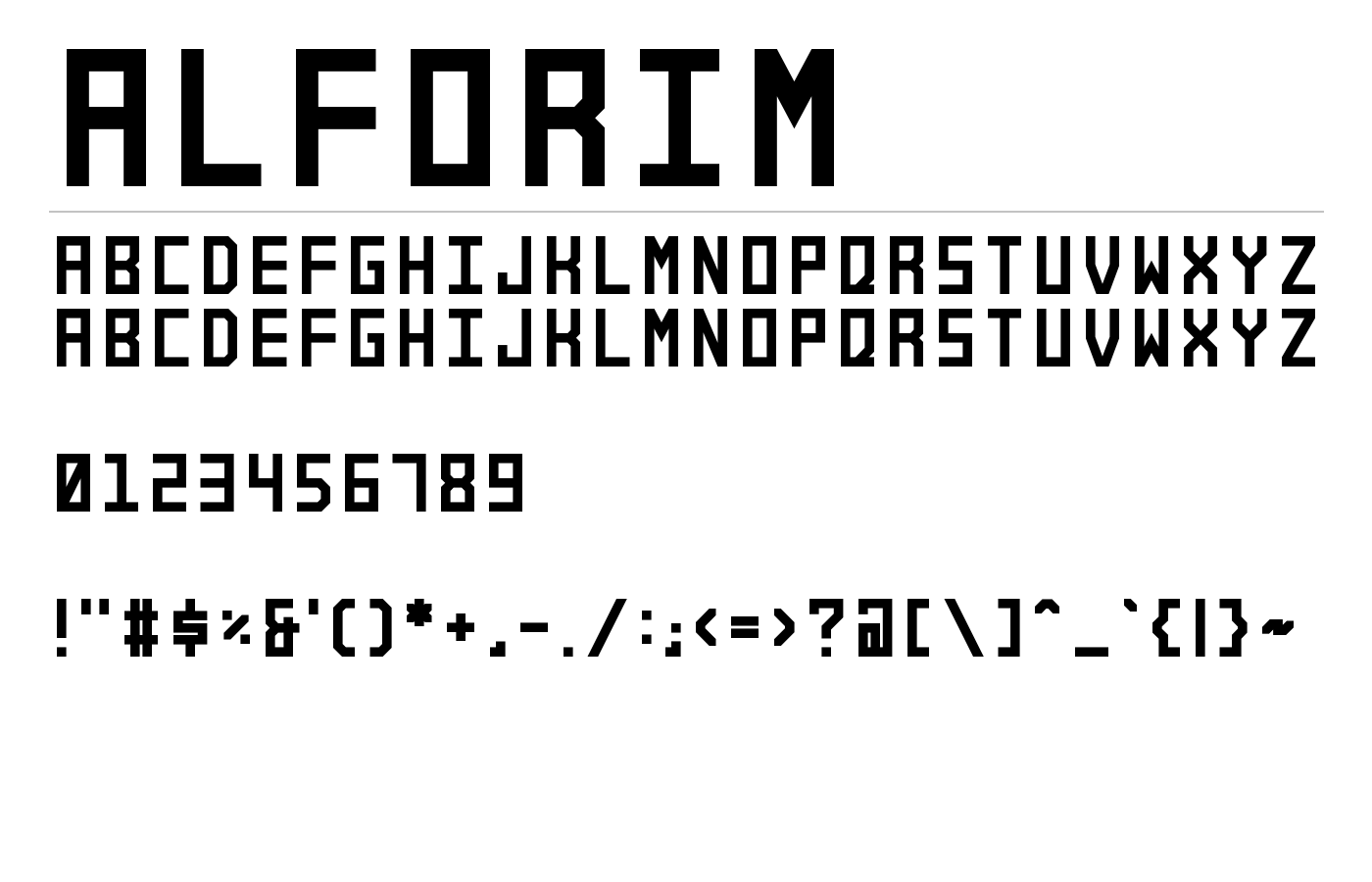
Alforim is a bold, condensed sans serif font with a modern, geometric style characterized by sharp angles and consistent stroke weight. Its tall, narrow letterforms and slightly futuristic aesthetic make it ideal for headlines, logos, and branding that require a strong, tech-inspired look. This font works well in contexts where clarity and impactful presence are needed, such as editorial designs, posters, and digital interfaces.
Alforim Font
About Alforim Font